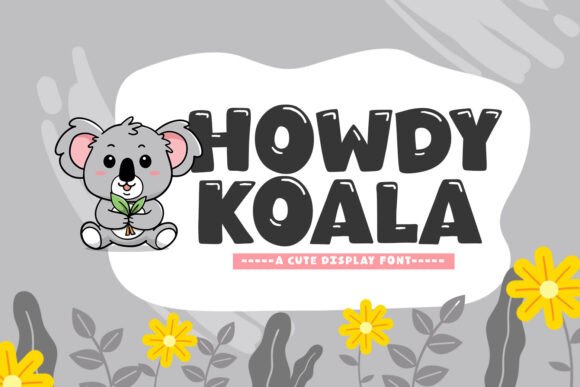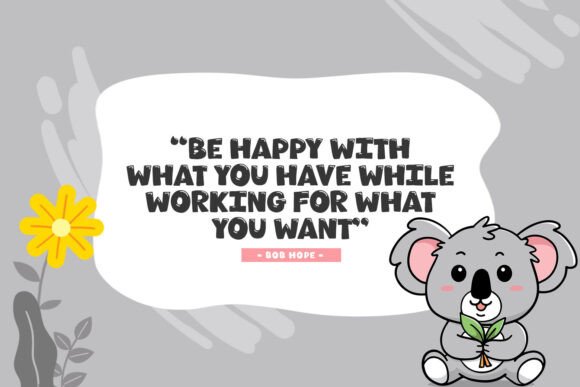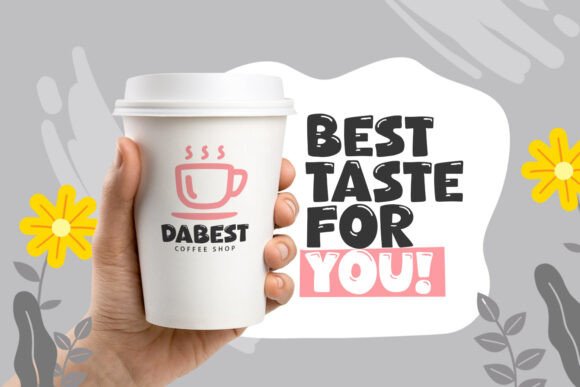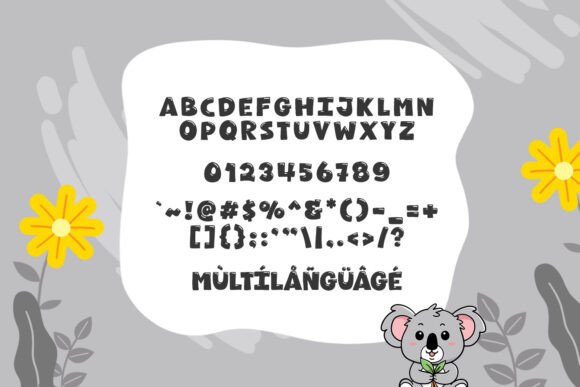
Howdy Koala Font: A Playful Display Font for Cute Designs!
About the Howdy Koala Font
Meet Howdy Koala Font, a stunning font that brings a touch of elegance and professionalism to any design. Howdy Koala is a modern and cute display font perfect for posters, logos, magazines, book covers, banners, and many more! Get this amazing font, and use it to create lovely designs. It can easily be matched to an incredibly large set of projects, so add it to your creative ideas and notice how it makes them stand out!
Howdy Koala’s playful, rounded forms make it ideal for children’s books, branding for playful products, and eye-catching headlines. Its friendly nature works well in posters and social media graphics, but its limited character set and low x-height make it less suitable for body text or UI elements requiring extensive readability.
Pairing Howdy Koala with a clean sans-serif like Open Sans for body text creates a balanced contrast; its friendliness complements the neutrality. For a more sophisticated look, consider pairing it with a classic serif like Garamond or a slightly more geometric sans-serif such as Montserrat.
The font’s overall personality is best described as cheerful and approachable, conveying a sense of fun and approachability. Avoid using it where a more serious or formal tone is required.